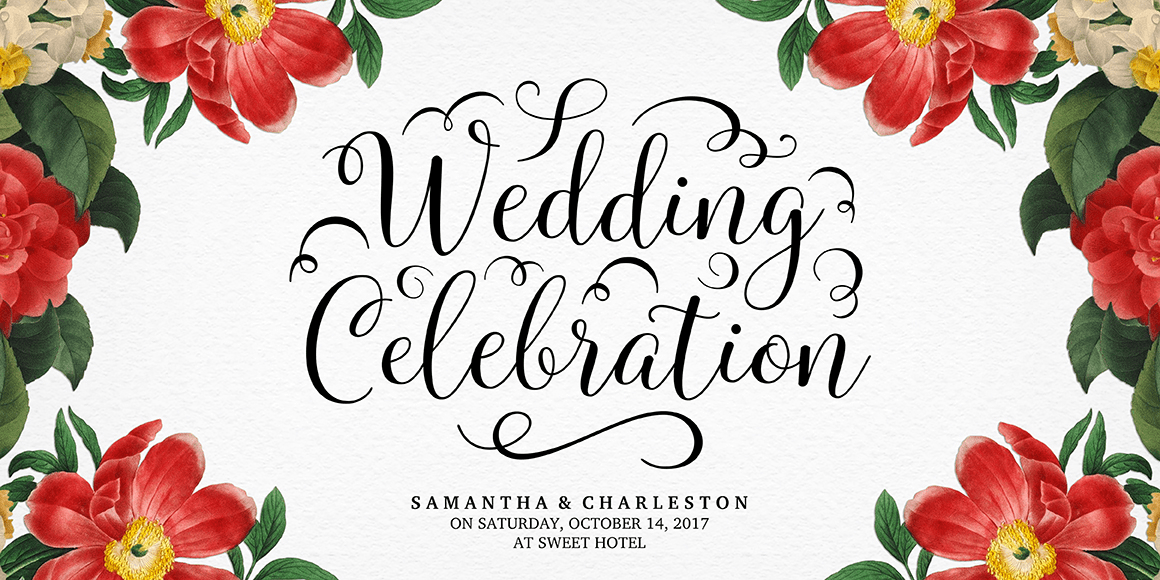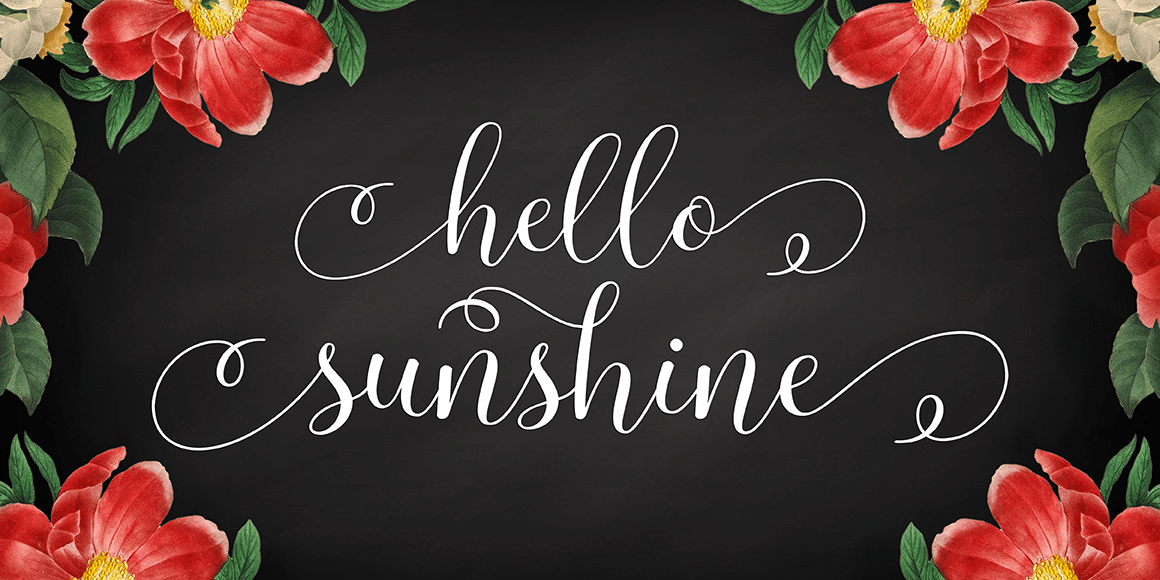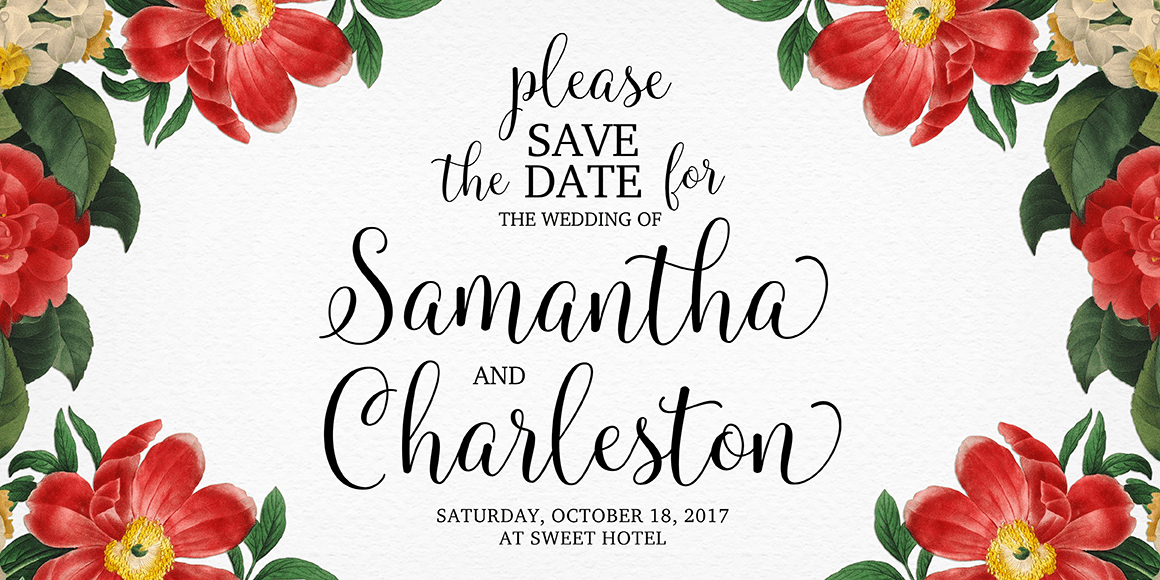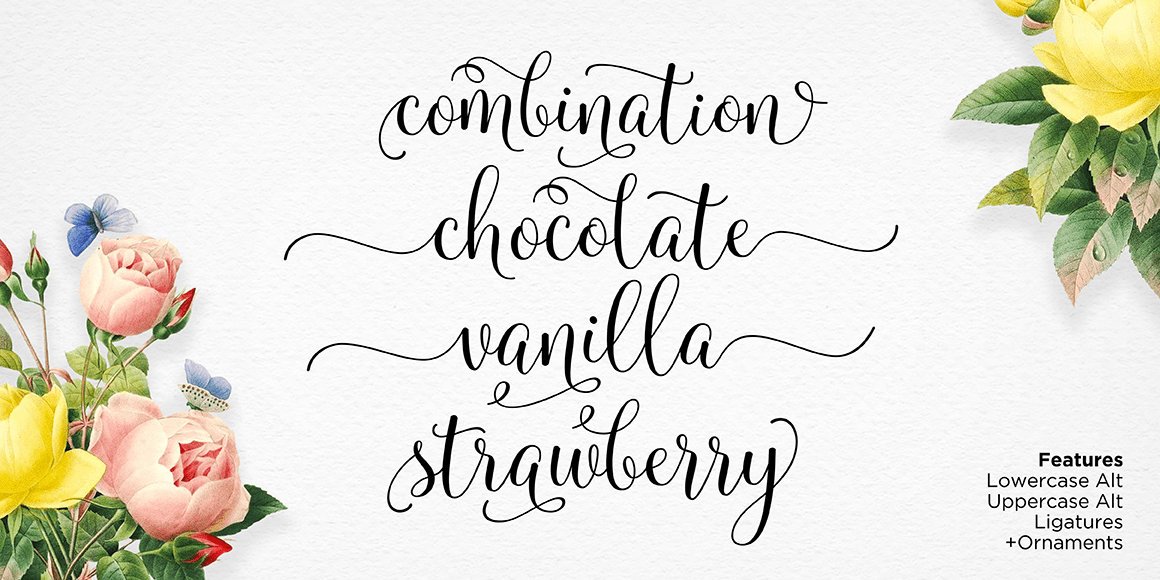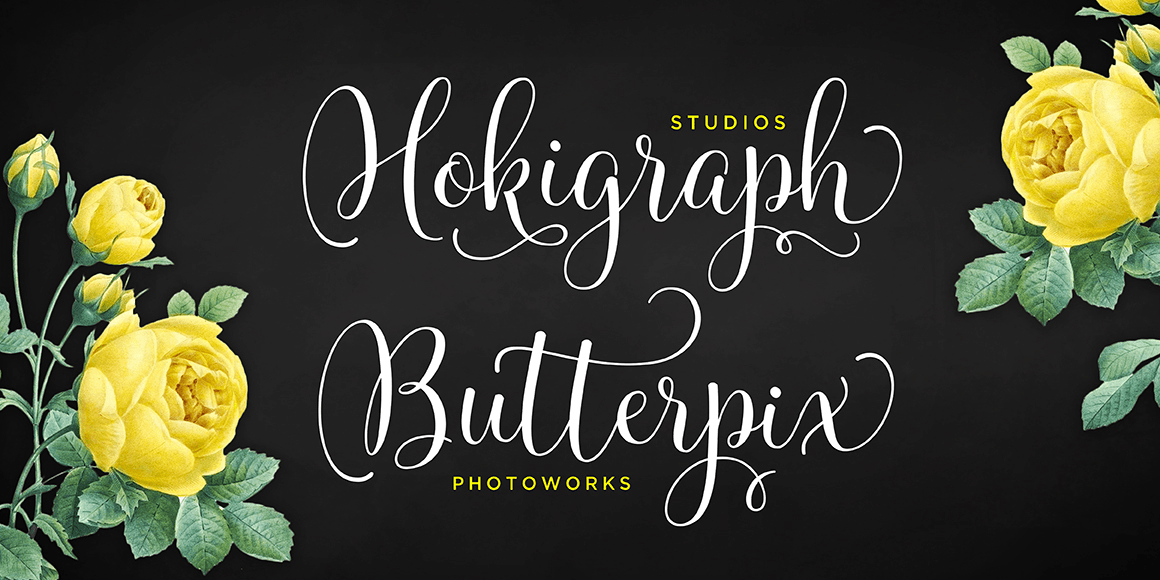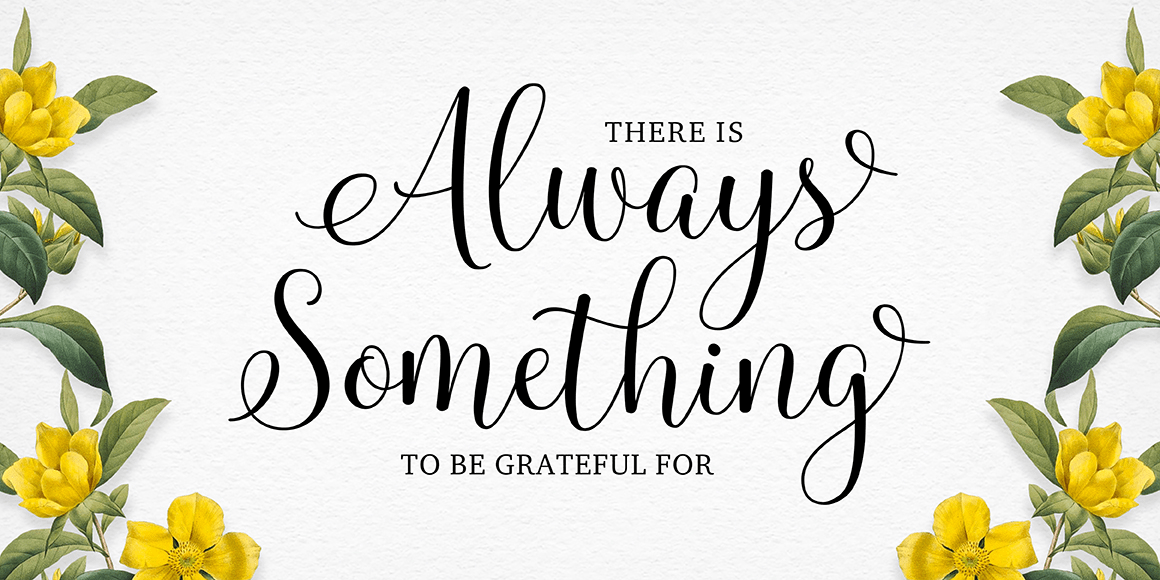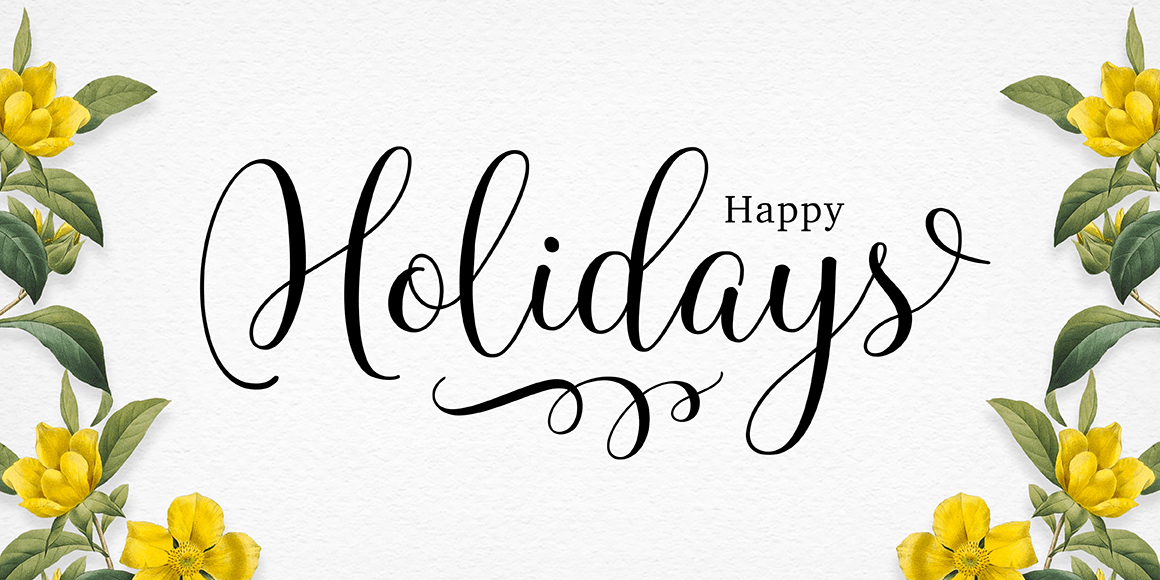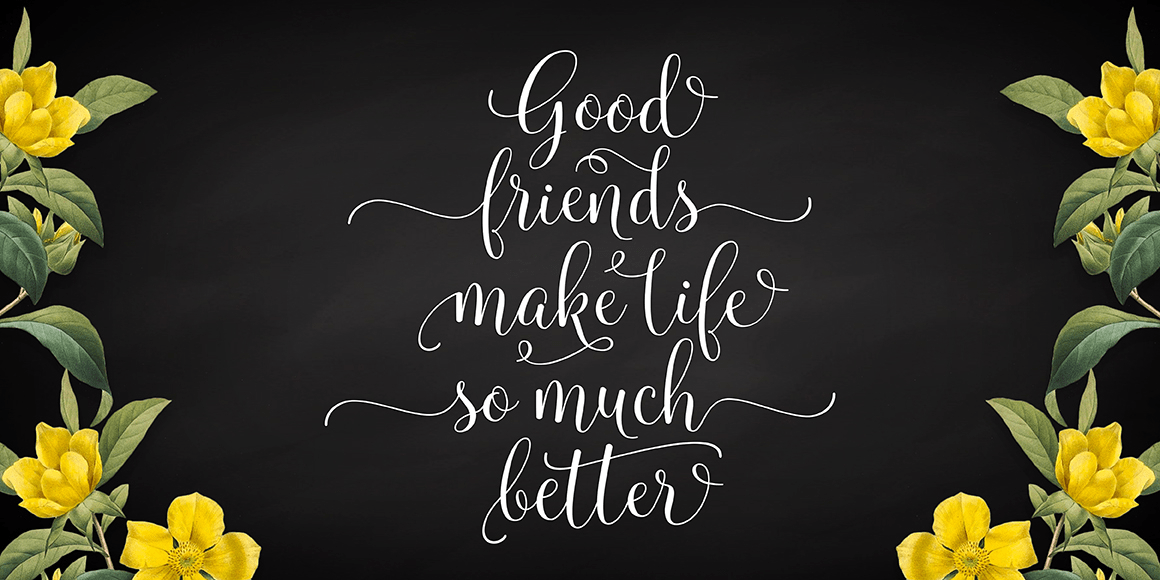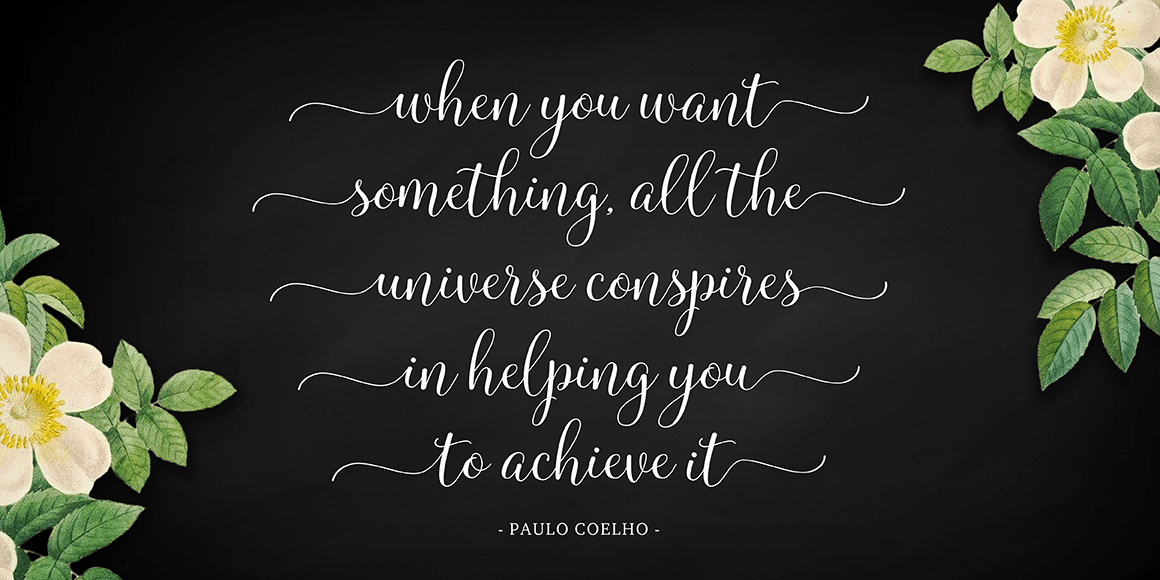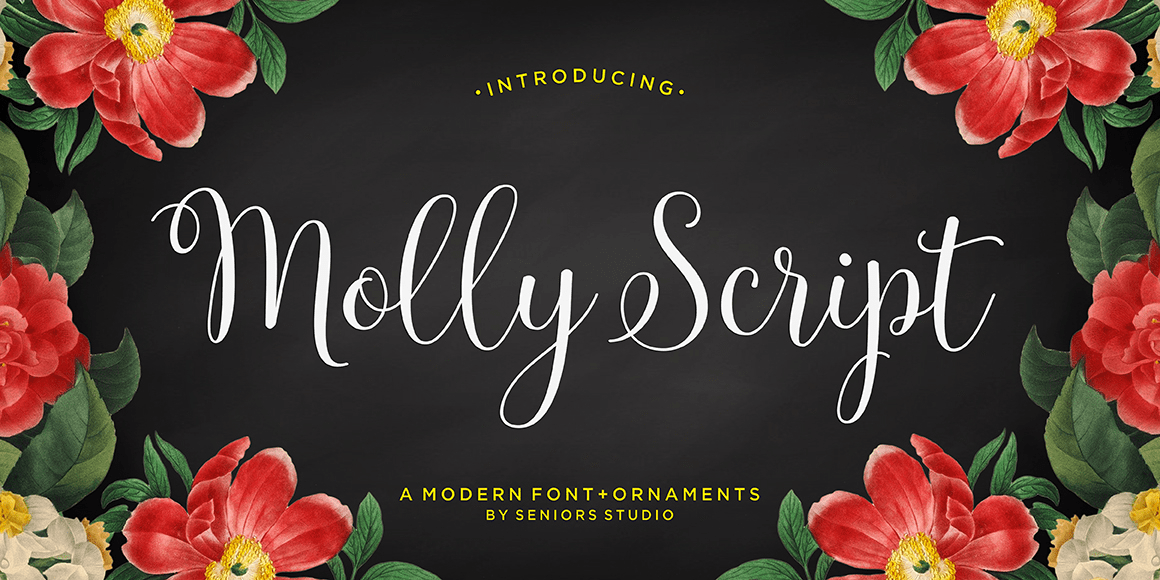
Molly Script
About Molly Script
Molly Script is modern handwritten calligraphy typeface with dancing up and down the baseline that comes with lovely alternates. It works perfectly for logos, fashion, stationery, letterpress, magazines, menus, books, invitations, wedding / greeting cards,…